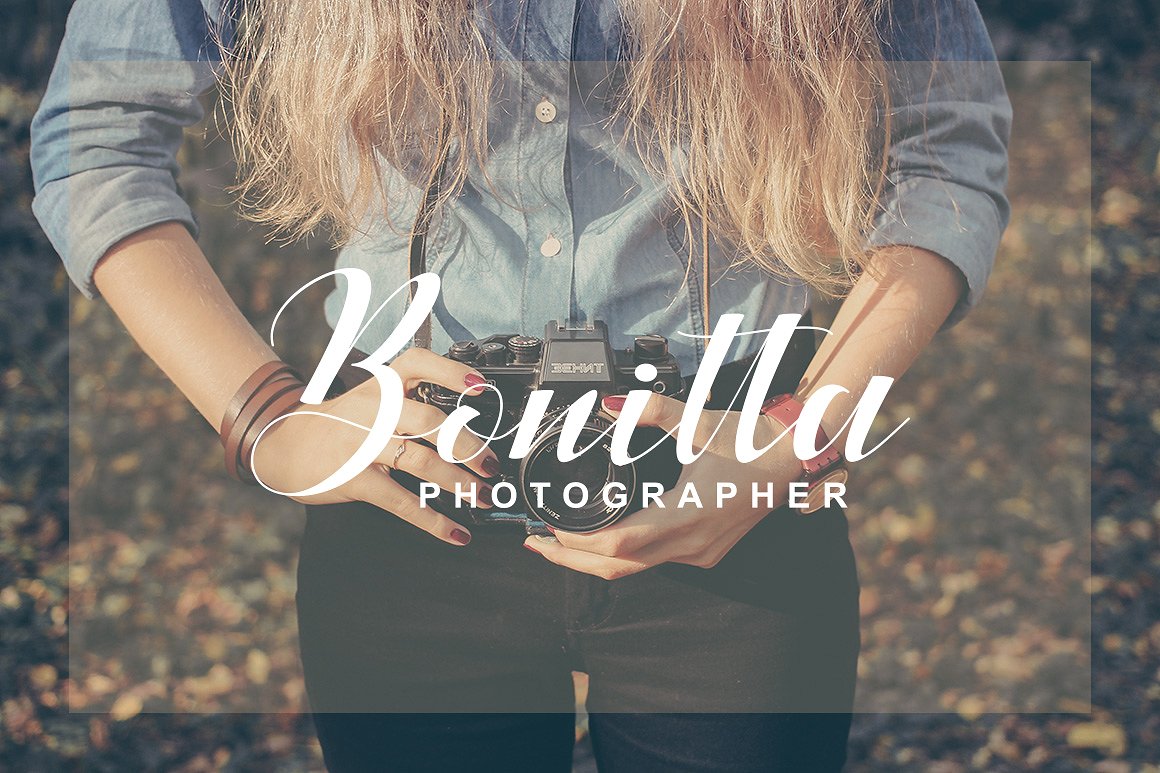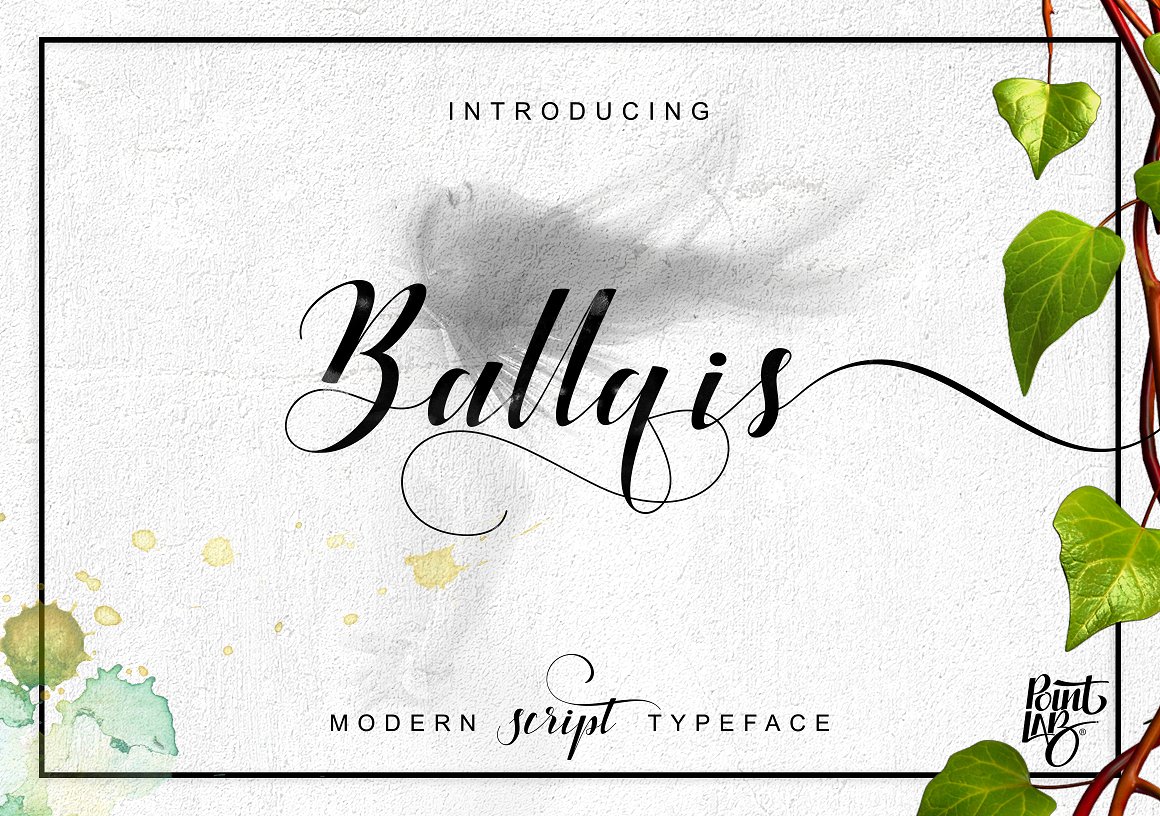
Ballqis Script
Ballqis Script Font
Ballqis Script – a new fresh & modern script with a calligraphy style, decorative characters and a dancing baseline! So beautiful on invitation like greeting cards, branding materials, business cards, quotes, posters, and more!